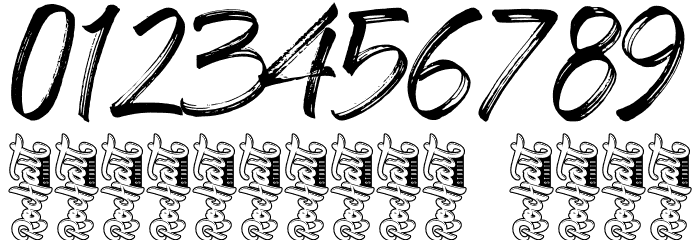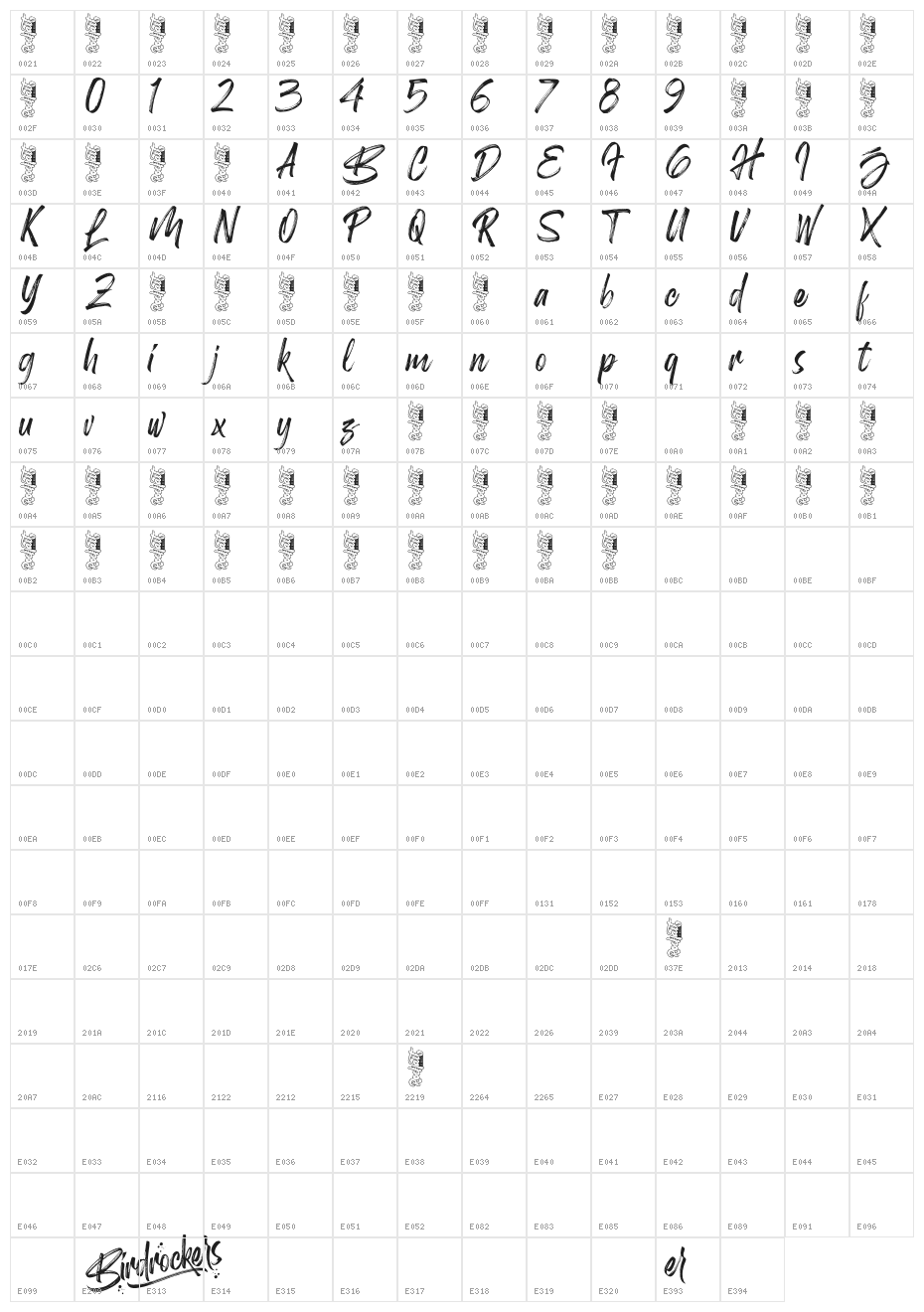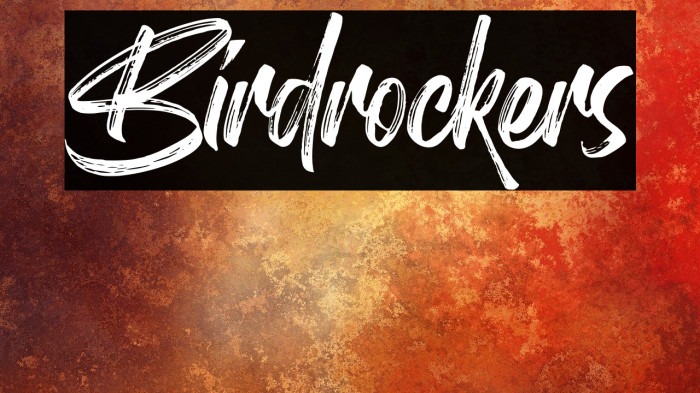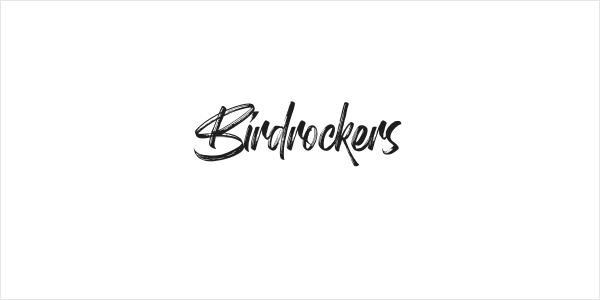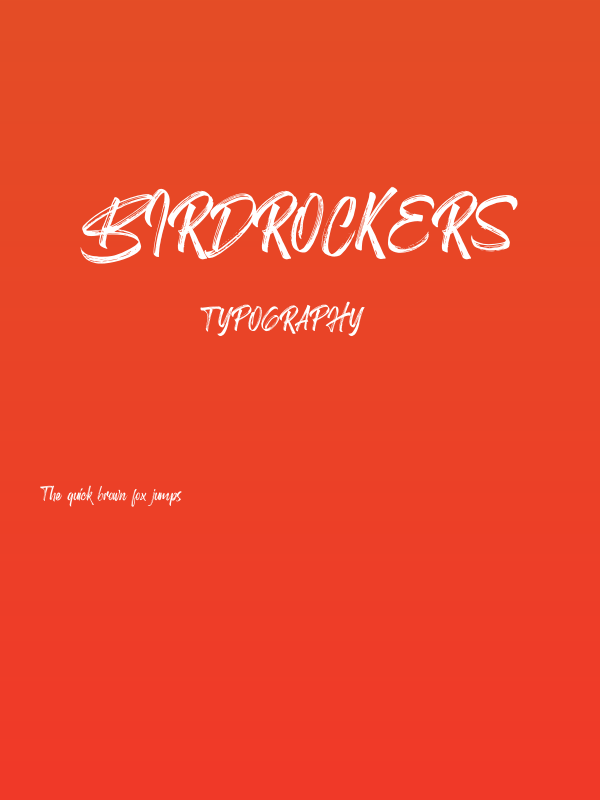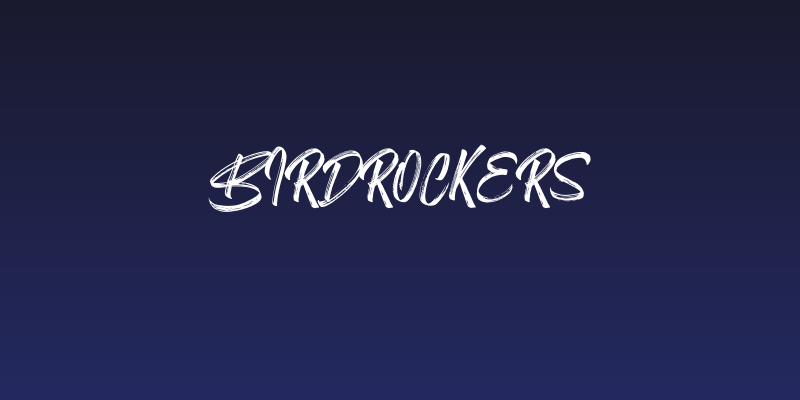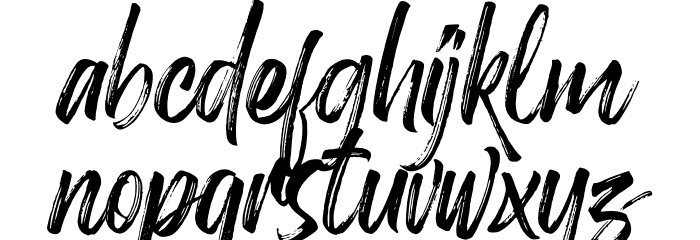
Birdrockers Font
Birdrockers Description
This font exudes a bold and energetic style, characterized by its brush-like strokes and dynamic flow. The uppercase letters are particularly striking, with a sense of movement and flair that suggests a handwritten, artistic touch. The lowercase letters maintain this fluidity, offering a cohesive look across both cases. Numbers and special characters are equally expressive, ensuring consistency throughout. The overall design is modern and edgy, making it ideal for projects that require a strong visual impact.